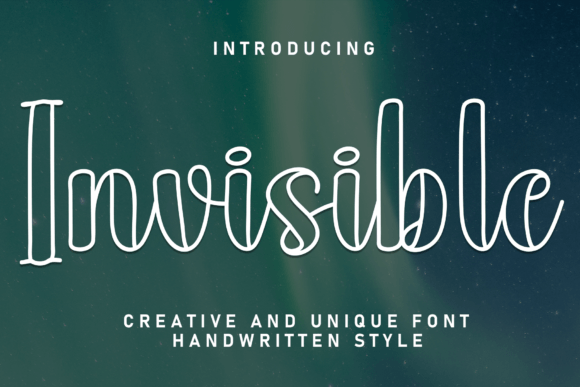
Behold, the Invisible Font, a script font family that will leave you spellbound with its magical charm. Crafted with meticulous care by Strongkeng Old, this font is like a whispered secret, adding a touch of whimsy and elegance to every creation.
Unleash your inner artist and let your words dance across the page with this enchanting font. Experience the beauty of perfectly crafted letters, each stroke flowing effortlessly into the next. Invisible Font is not just a font; it's an emotion, a sensation that will captivate your audience.
Imagine your wedding invitations, adorned with the delicate swirls and flourishes of Invisible Font, conveying the love and joy of your special day. Or picture your handmade cards, infused with a personal touch that speaks volumes. With Invisible Font, every design becomes a masterpiece, every word a work of art.
Whether you're creating logos, branding, or simply expressing yourself through typography, Invisible Font is your perfect companion. Its versatile nature allows it to adapt seamlessly to any project, adding a touch of magic to everything it graces.
Don't settle for ordinary fonts. Embrace the extraordinary with Invisible Font. Let your creativity soar as you explore the endless possibilities this font offers. Step into a world of enchantment and let your designs come alive with the allure of the Invisible Font.